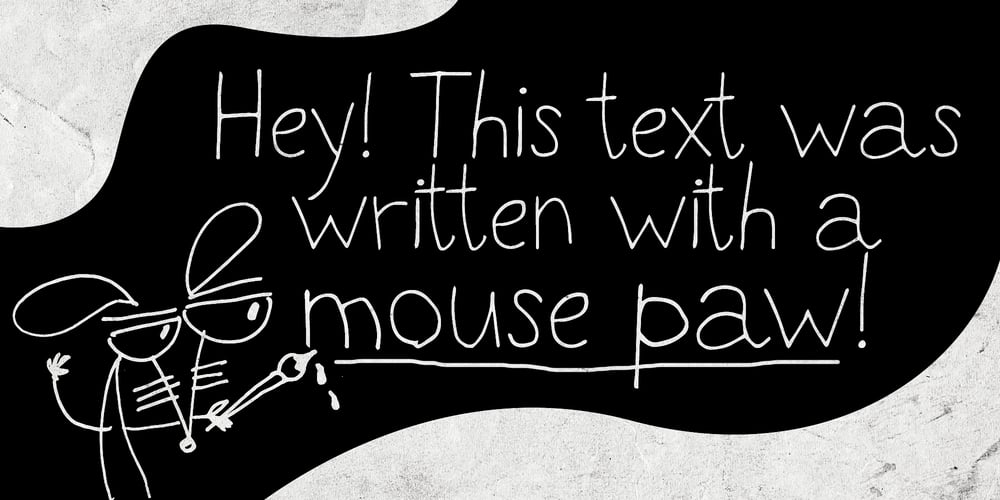
Mouse Paw Font Family was designed by Alexander Sharkov and published by Alexander Sharkov. Mouse Paw contains 2 styles and family package options. My home mouse, Hector, drew this wonderful font for kids. He tried very hard and hopes that you will like the result of his work!This font is perfect for advertising various children’s brands, decorating children’s books, and generally any children’s projects!Hector and I believe that the font Mouse Paw will help you in any business.